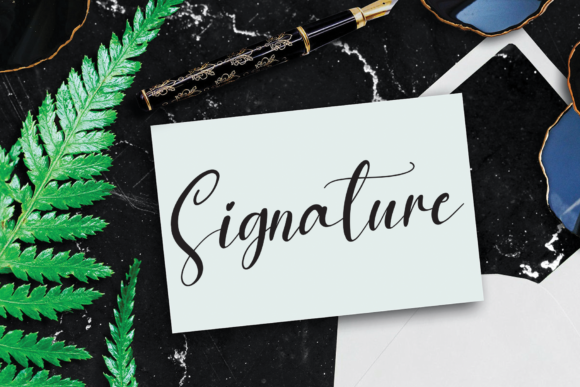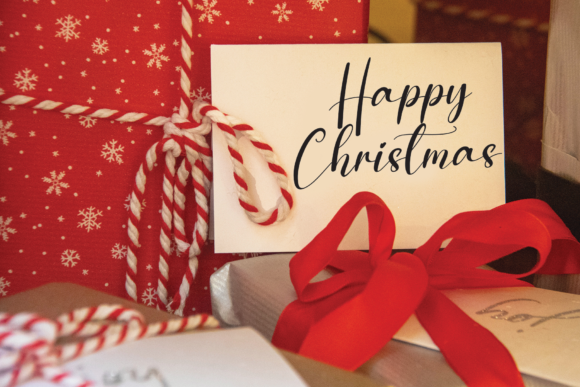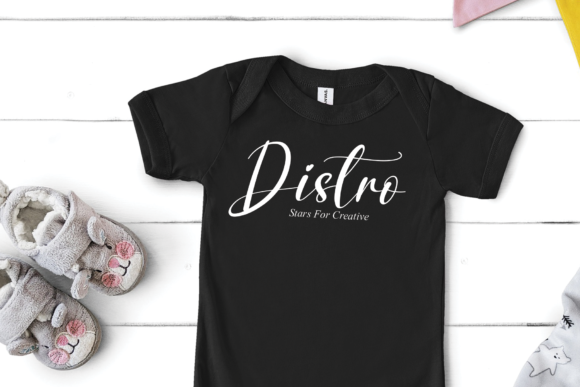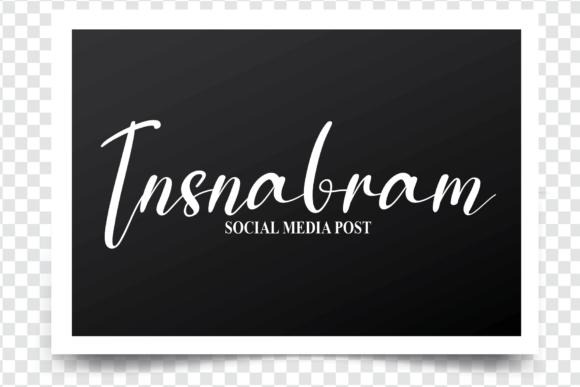
Introducing Brillian Font: The Everlasting Handwritten Font for Stunning Designs
Are you a designer or crafter looking for a unique and captivating font to elevate your creative projects? Look no further than Brillian Font, an exquisite handwritten font that is sure to leave a lasting impression. With its delicate touch and original character design, Brillian Font is the perfect choice for creating eye-catching logos, branding, and quotes that will make your design shine.
The Beauty of Brillian Font
Brillian Font is a handcrafted font that boasts an everlasting quality, making it a versatile and timeless choice for a wide range of design applications. Each character has been carefully crafted with precision and attention to detail, resulting in a font that exudes elegance and sophistication. The original and delicate touch of Brillian Font will add a touch of refinement to your designs, setting them apart from the ordinary.
Brillian Font is specifically designed to help you create stunning logos, branding, and quotes that will capture the attention of your audience. Its unique and handwritten style makes it perfect for:
- Logos: Create a memorable and impactful logo that reflects your brand’s personality and values.
- Branding: Develop a consistent visual identity that showcases your brand’s style and sophistication.
- Quotes: Add a touch of elegance and refinement to your inspirational quotes and sayings.
What Sets Brillian Font Apart
So, what makes Brillian Font stand out from other fonts? Here are just a few reasons why designers and crafters love Brillian Font:
- Unique and Original Design: Each character has been carefully crafted to ensure that your designs stand out from the crowd.
- Delicate Touch: The font’s delicate touch adds a touch of elegance and refinement to your designs.
- Everlasting Quality: Brillian Font is designed to be timeless, making it a versatile choice for a wide range of design applications.
- Handwritten Style: The font’s handwritten style adds a personal touch to your designs, making them more relatable and engaging.
Tips for Using Brillian Font
To get the most out of Brillian Font, here are a few tips to keep in mind:
- Use it sparingly: Brillian Font is a statement font, so use it sparingly to add emphasis and impact to your designs.
- Experiment with colors: The font’s delicate touch looks stunning in a range of colors, so don’t be afraid to experiment and find the perfect hue for your design.
- Pair it with other fonts: Brillian Font pairs beautifully with other fonts, so try combining it with a sans-serif font for added contrast and visual interest.
In conclusion, Brillian Font is a stunning handwritten font that is perfect for designers and crafters looking to add a touch of elegance and sophistication to their creative projects. With its unique and original design, delicate touch, and everlasting quality, Brillian Font is sure to become a favorite in your font collection. So why wait? Download Brillian Font today and start creating stunning designs that will leave a lasting impression.